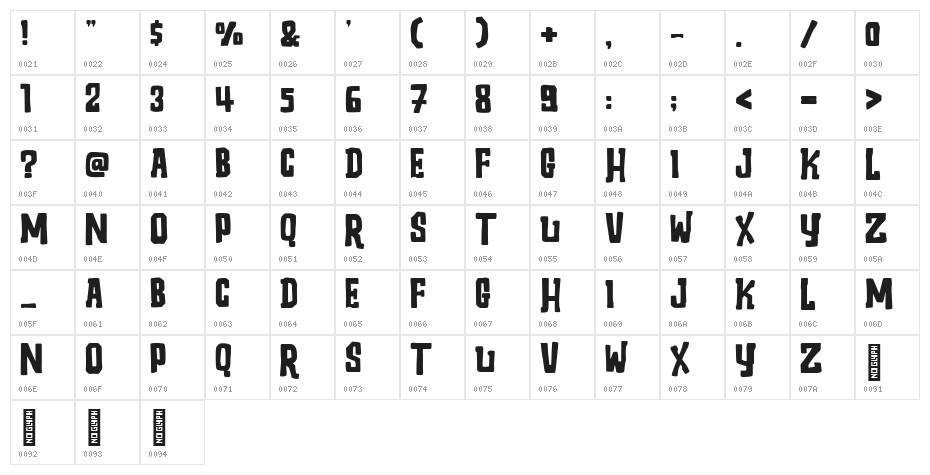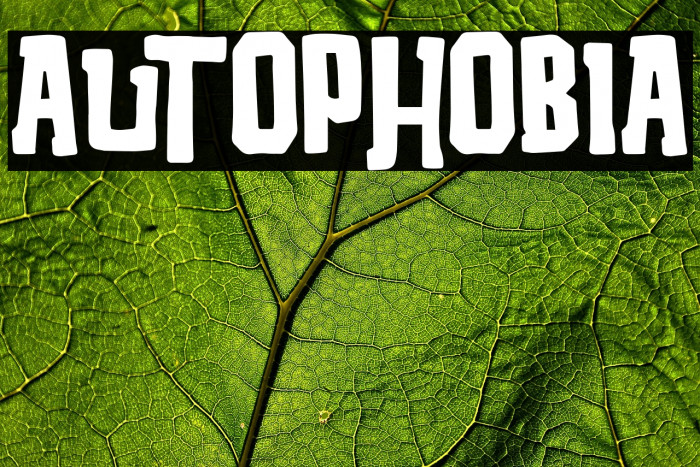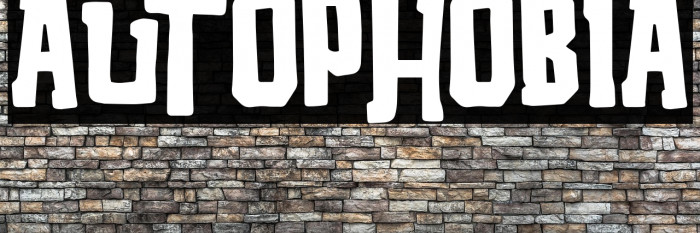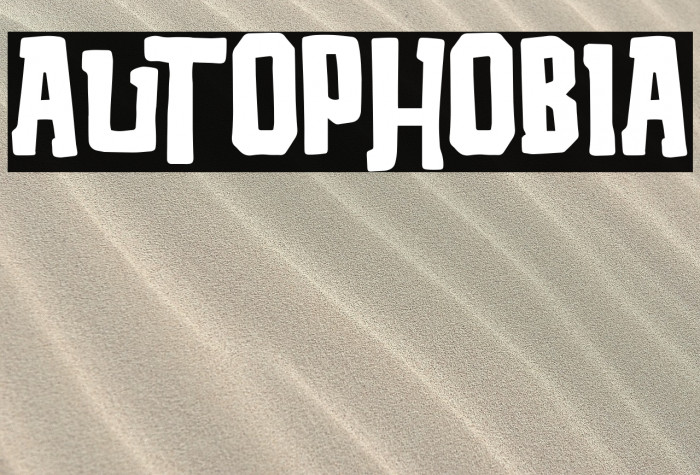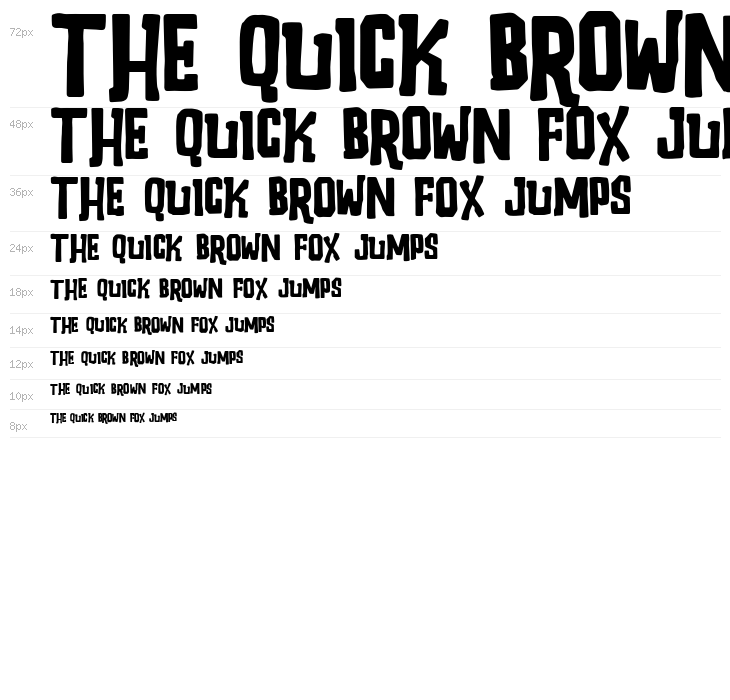
Autophobia Font
Autophobia Description
This font features a bold and rugged design with a distinctly hand-drawn appearance. The characters are thick and uneven, giving it a raw and organic feel. The uppercase letters are prominent and assertive, while the lowercase letters maintain the same boldness, creating a cohesive look. Numbers and special characters follow the same style, ensuring consistency across all elements. The font's irregular edges and varying stroke widths contribute to its unique and eye-catching aesthetic, making it ideal for projects that require a strong visual impact.
| Proposed Projects | Perfect for posters, album covers, branding for edgy products, and any design that needs a bold statement. |